From dripping horror letters and haunted gothic type to cute spooky fonts and witchy scripts, these Canva Halloween fonts can instantly change the mood of your October designs.
Looking for the best Halloween fonts in Canva? The right typeface can turn a simple invitation, T-shirt design, Pinterest graphic or party poster into something creepy, playful, mysterious or wonderfully witchy.
Canva includes a surprisingly varied collection of Halloween-friendly fonts. Some look like dripping slime or horror-movie lettering, while others lean toward vintage gothic books, magical spell labels, playful Halloween parties or distressed haunted-house graphics.
In this guide, we picked 21 Canva Halloween fonts covering spooky, scary, gothic, witchy, vintage and distressed styles so you can quickly find the right look for your next Halloween project.
Below are our favorite Halloween fonts to search for directly inside Canva. Try a short phrase such as Happy Halloween, Trick or Treat, Spooky Season or Witch Please so you can quickly compare how each style works in a real design.
1. Shlop
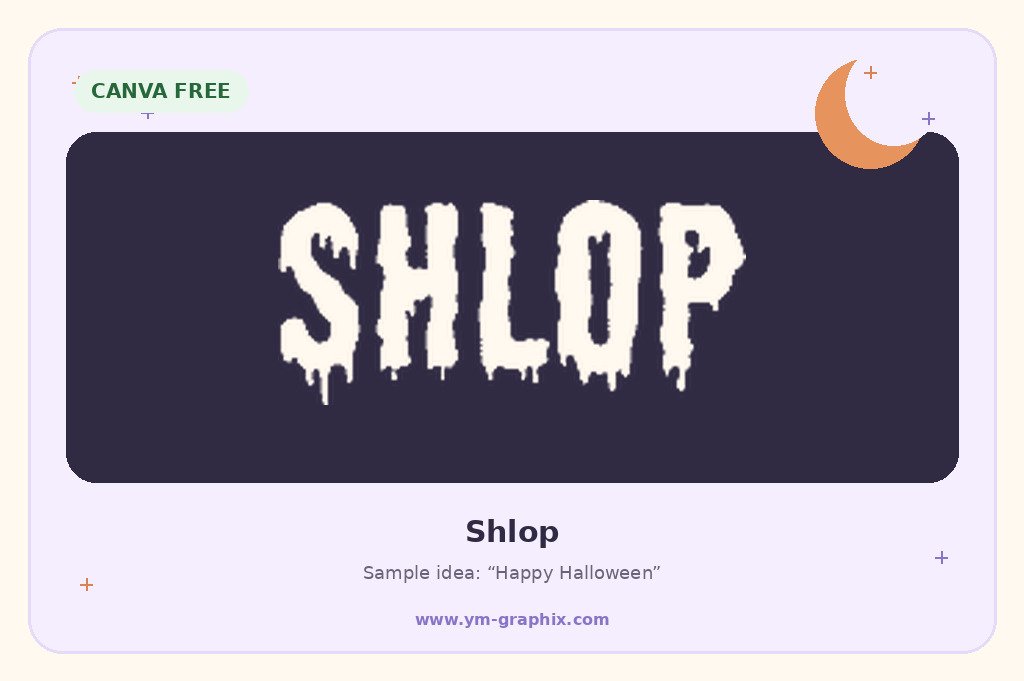
Shlop is one of the easiest Canva fonts to recognize as Halloween typography. Its heavy letters appear to melt and drip, giving a simple word an instant slime, monster or classic horror-movie personality.
Best for: haunted house posters, Halloween party graphics, monster designs, YouTube thumbnails and bold social posts.
2. Jeepers
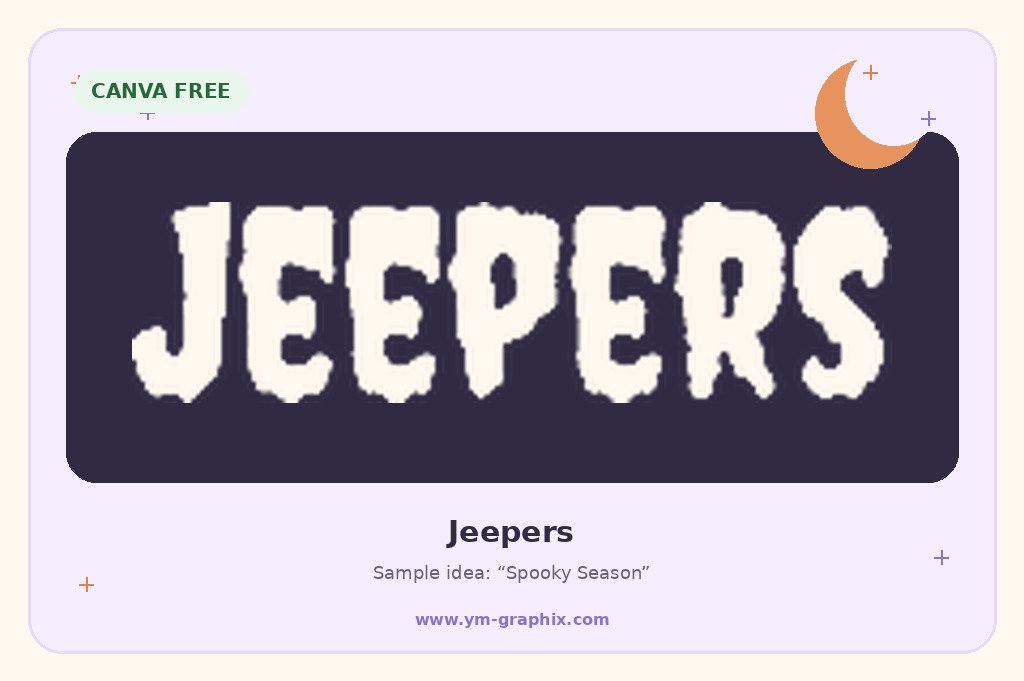
Jeepers has a wonderfully strange, slightly wobbly look associated with vintage Halloween graphics. It feels spooky without becoming too frightening, which makes it one of the most versatile Halloween fonts in Canva.
Best for: Halloween invitations, classroom projects, kids’ parties, Trick or Treat signs and Pinterest graphics.
3. Charu Chandan Blood Drip
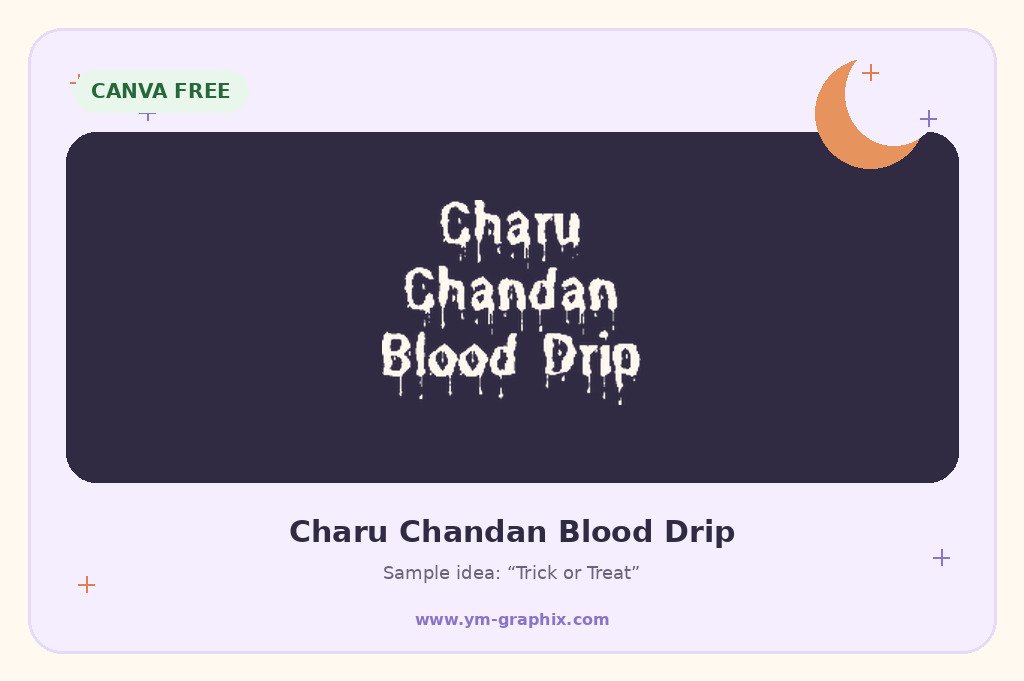
The elongated dripping strokes give Halloween headlines a theatrical horror look that works especially well against dark backgrounds.
Best for: vampire designs, horror invitations, haunted attractions, scary posters and dramatic Halloween titles.
4. Butcherman
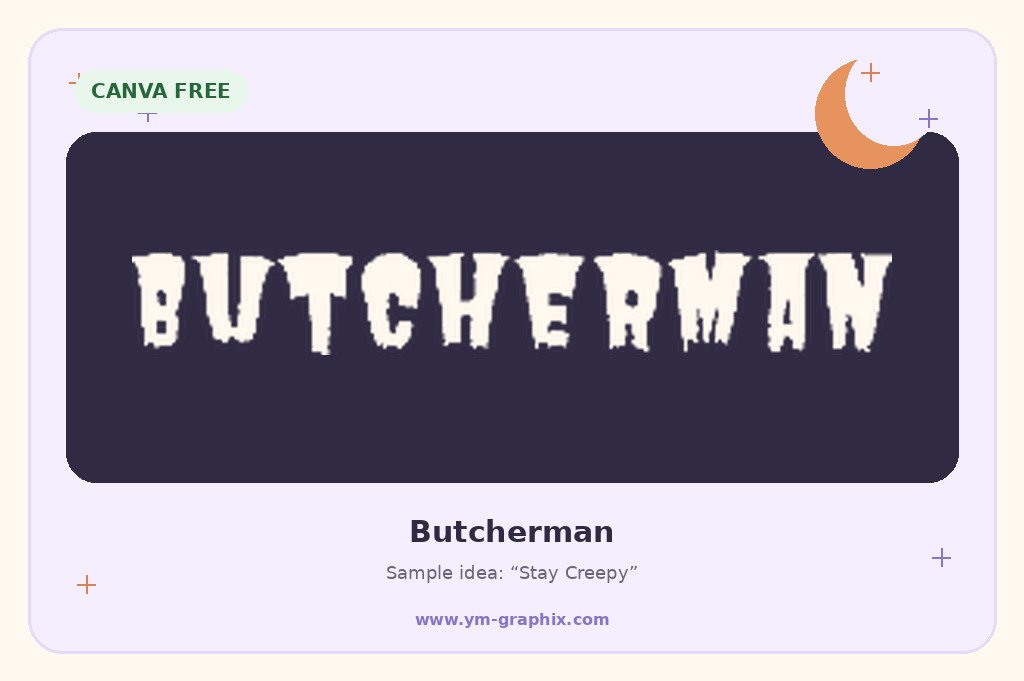
Butcherman combines rough letter shapes with hanging, dripping details. It feels more distressed and aggressive than a playful Halloween font.
Best for: horror posters, Halloween event flyers, T-shirt graphics and creepy headlines.
5. Pirata One
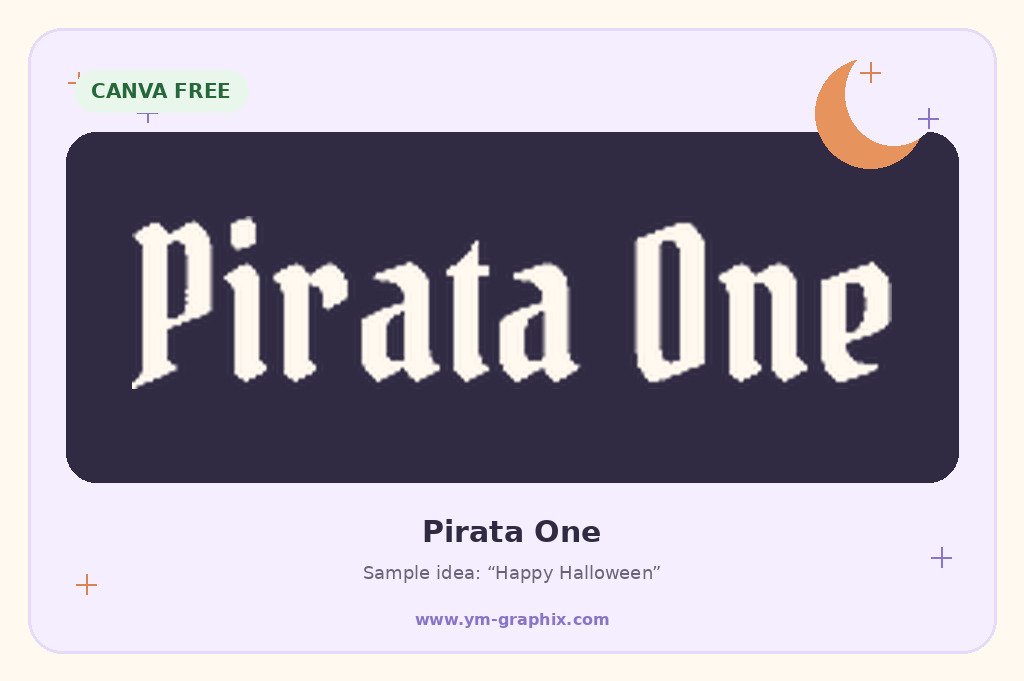
Pirata One brings a dramatic blackletter personality without becoming difficult to read in short titles. It works beautifully for gothic Halloween layouts and dark vintage compositions.
Best for: gothic posters, spellbook graphics, witchy designs and vintage Halloween typography.
6. ITC Blackadder
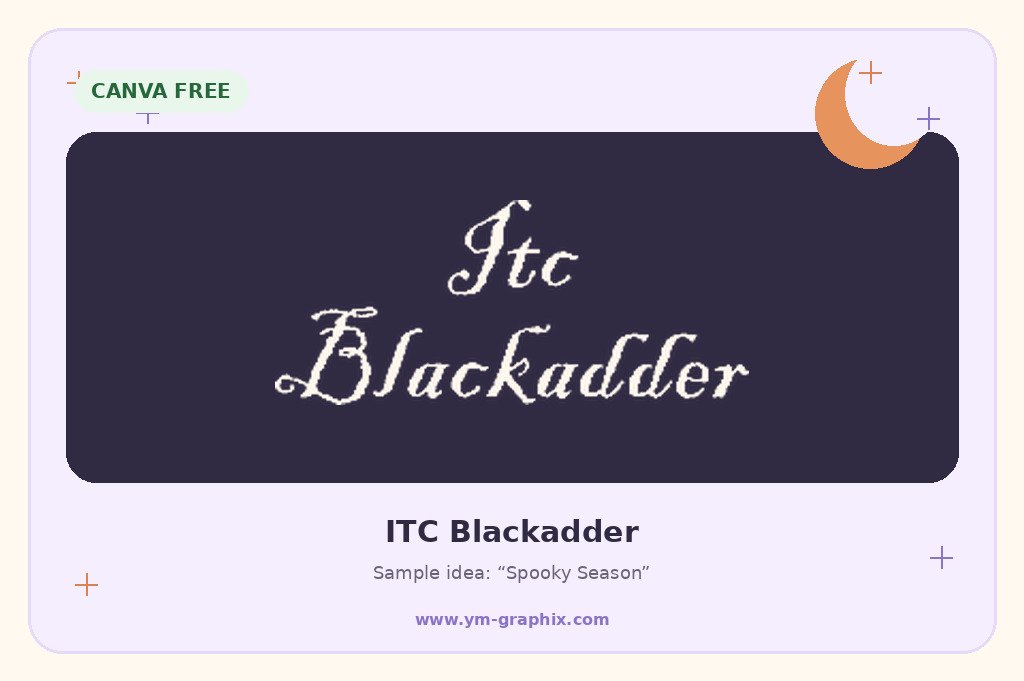
ITC Blackadder looks like dramatic handwriting from an old magical manuscript. Its flourishes suit witchy and mystical Halloween designs.
Best for: potion labels, spellbook covers, witch party invitations, quotes and magical Halloween designs.
7. Vampiro One
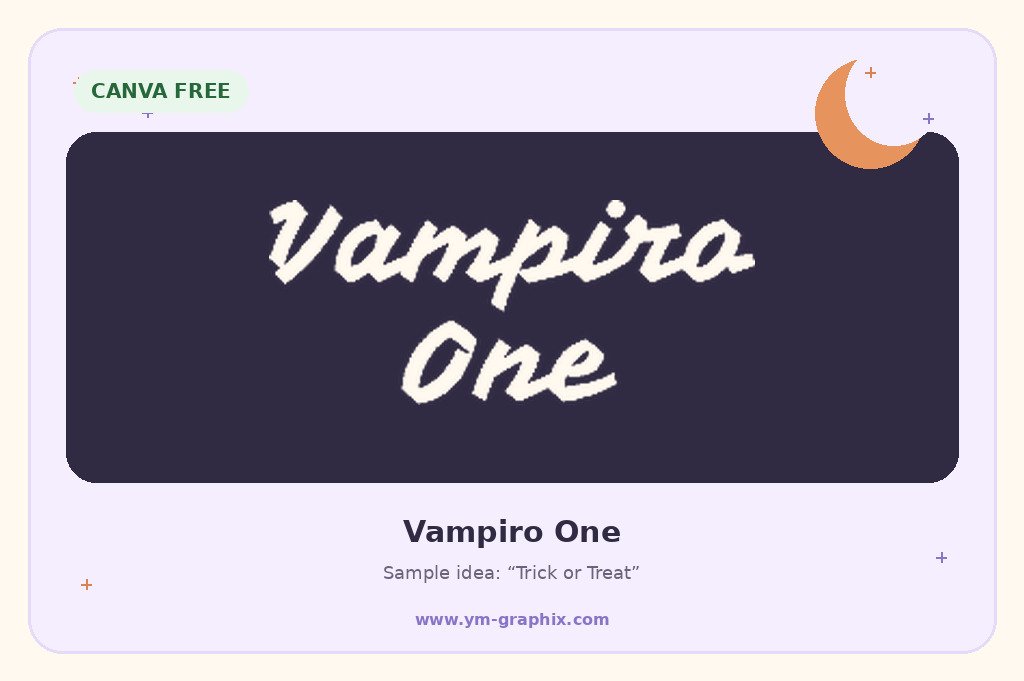
Vampiro One has a quirky decorative personality that sits somewhere between gothic lettering and an illustrated Halloween title.
Best for: vampire parties, October graphics, stickers, playful posters and Halloween social content.
8. Lucky Bones
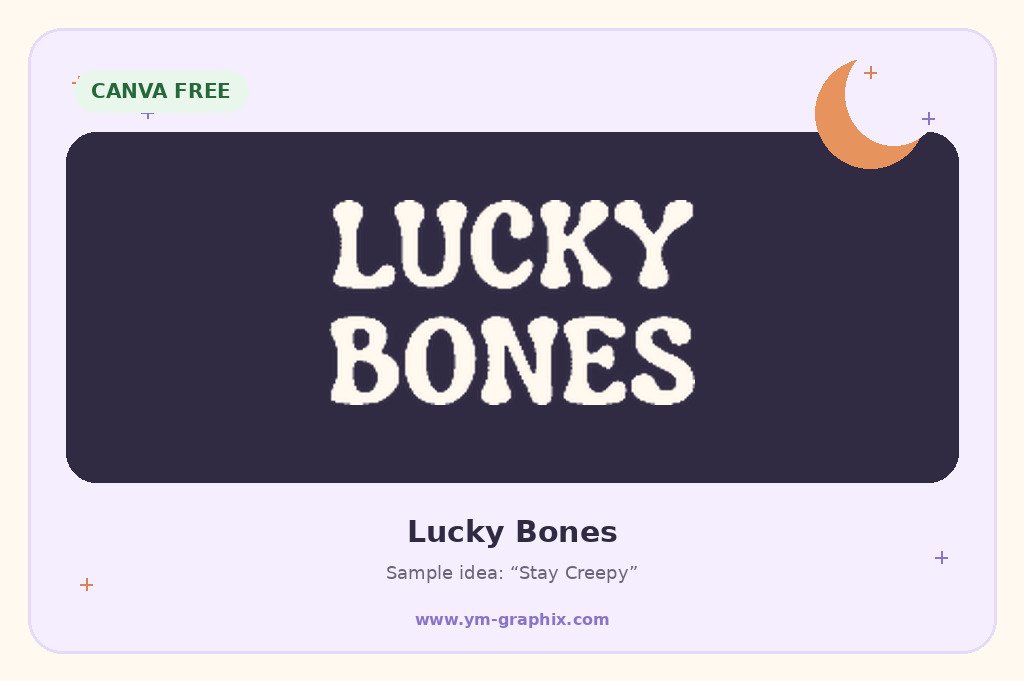
Lucky Bones brings an illustrated skeleton feeling to the typography itself and works well for playful spooky-season projects.
Best for: skeleton crafts, kids’ Halloween designs, classroom printables, party signs and cute-spooky graphics.
9. Hellprint
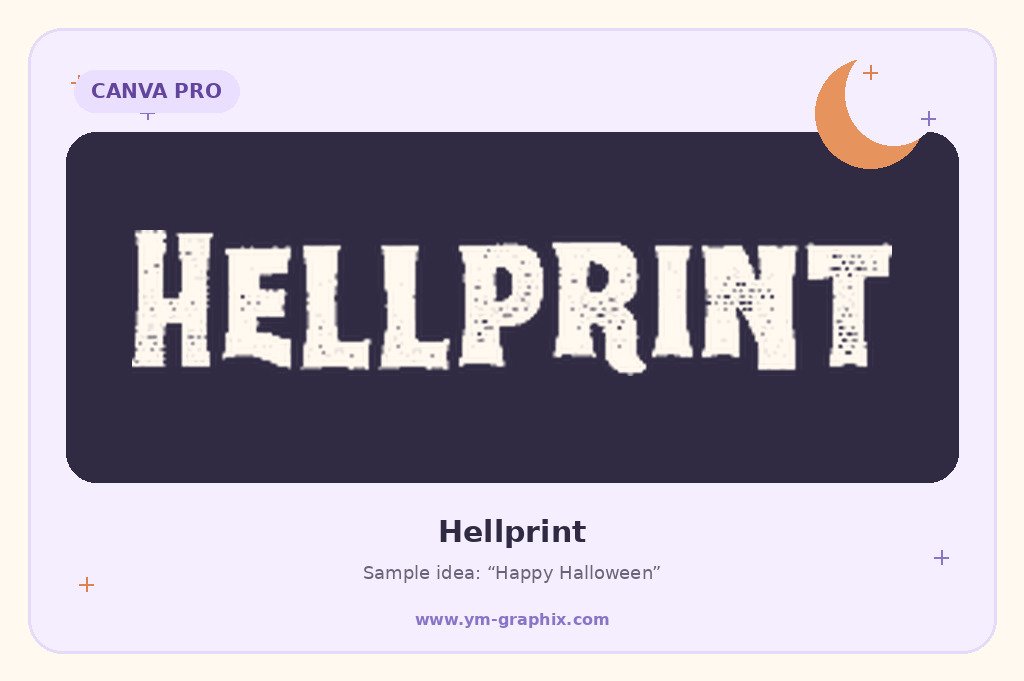
Hellprint adds rough texture and distressed energy to Halloween titles, making it useful when polished typography would feel too clean.
Best for: horror posters, grunge Halloween graphics, haunted events and distressed merchandise.
10. Golden Night
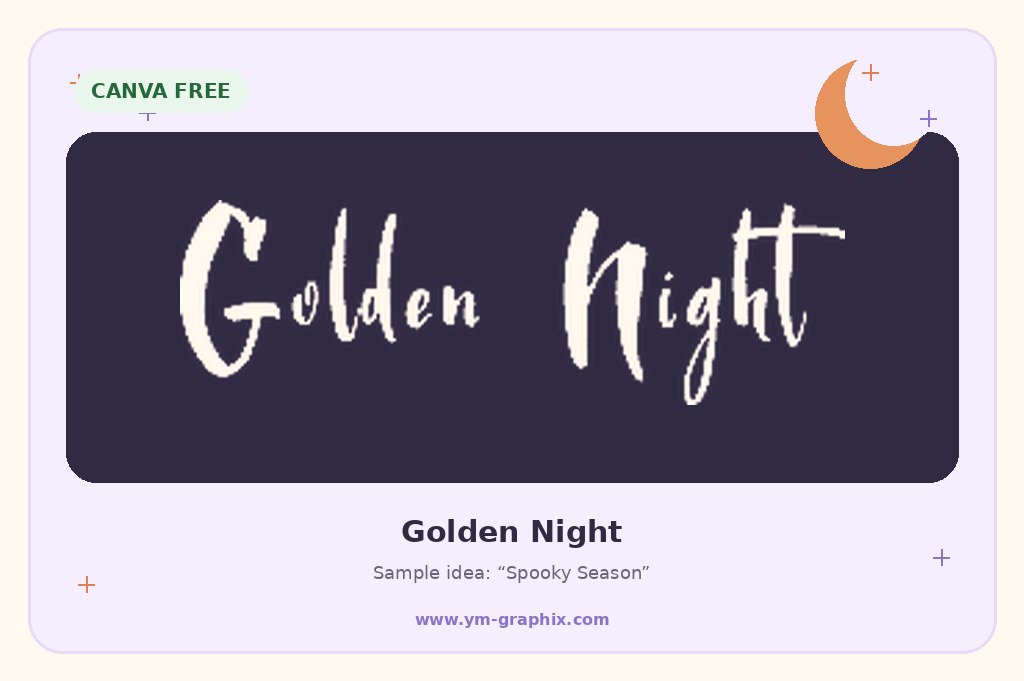
Golden Night is useful for the elegant side of spooky season and pairs naturally with moons, stars and celestial illustrations.
Best for: witchy invitations, celestial Halloween art, elegant quotes and mystical branding.
11. Moonlight
Moonlight works particularly well in soft witchy and celestial Halloween designs with moons, stars, lavender and dusty orange.
Best for: witchy Pinterest graphics, moon-themed invitations, quotes and aesthetic Halloween designs.